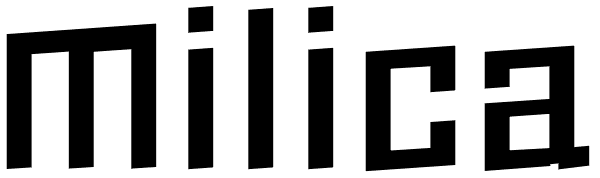
Milica
Milica is a display font, inspired on action movies and urban Military culture, designed with straight verticals but slanted horizontals with no curves and sharped hard strokes, in 5 sizes, ExtraLight, Light, regular, Bold & ExtraBlack, plus italic...